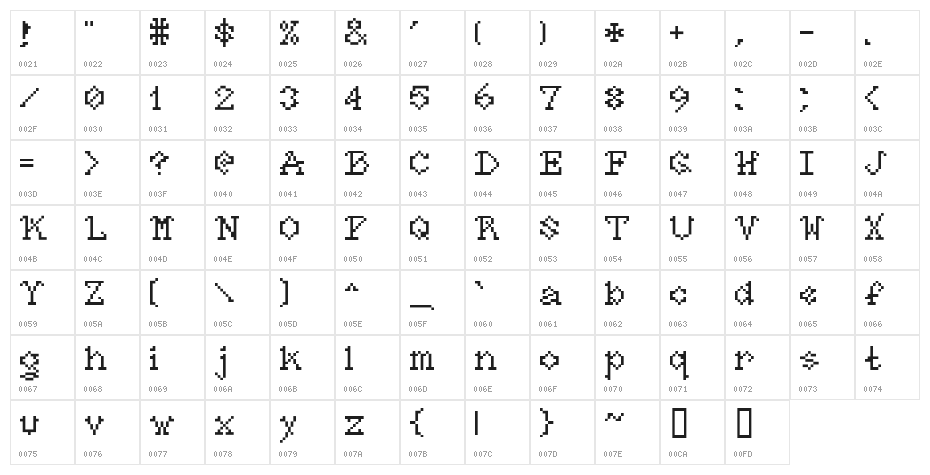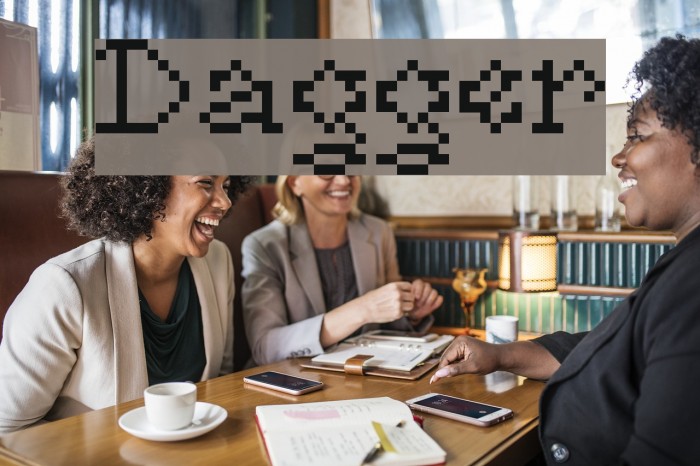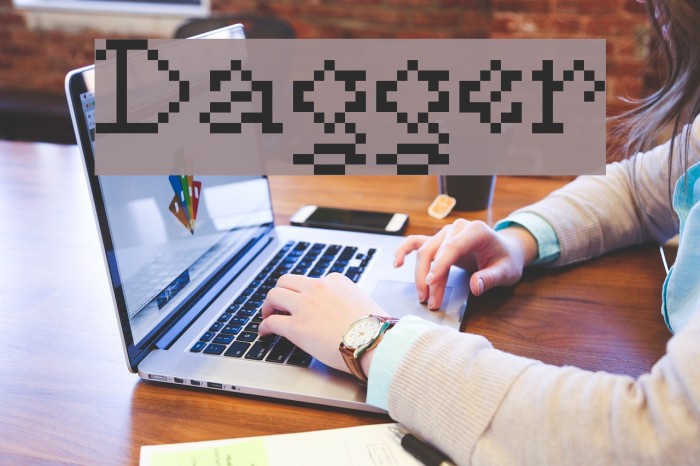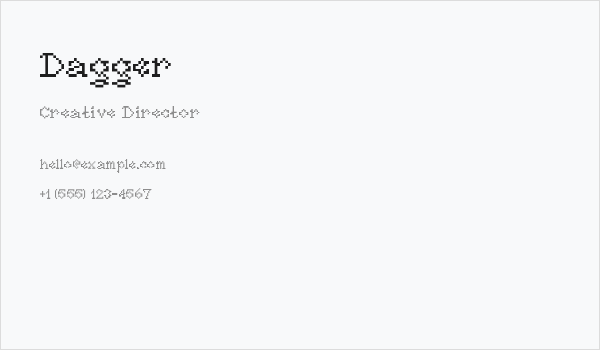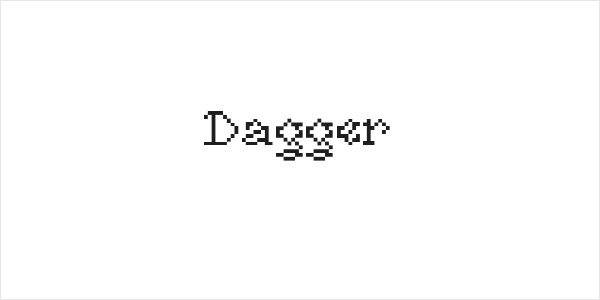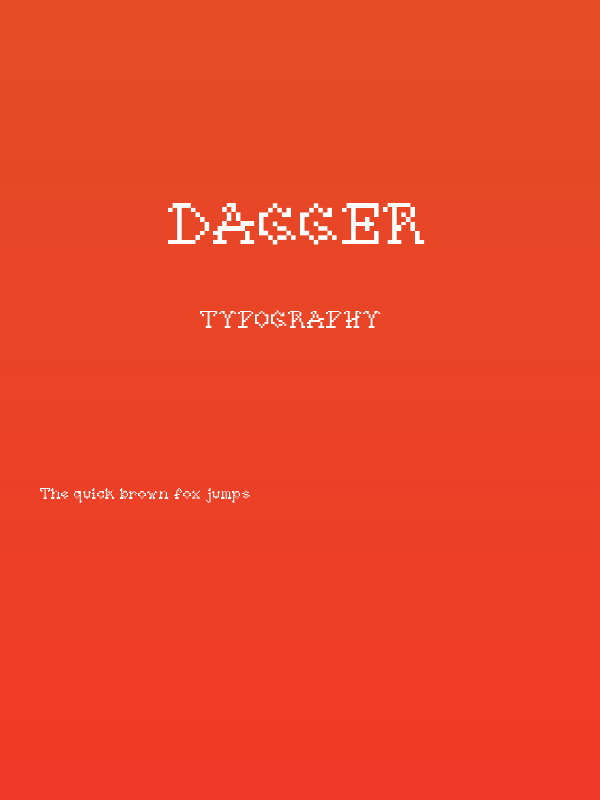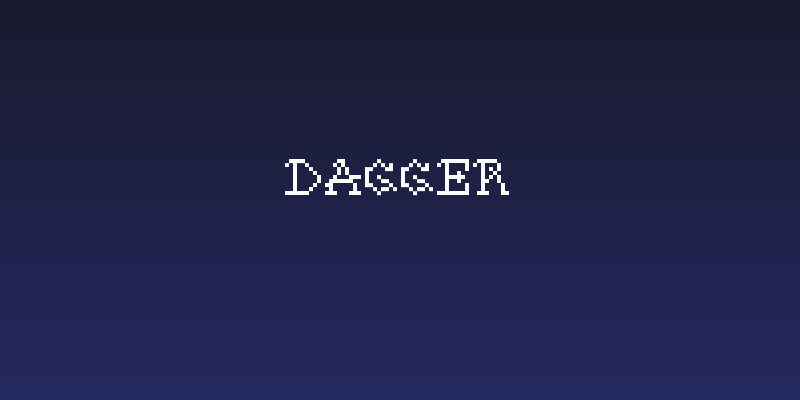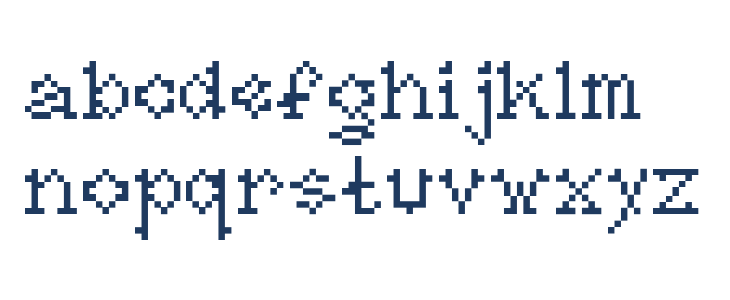
Dagger Font
Dagger Description
This font features a pixelated, retro style reminiscent of early computer graphics and video games. Each character is composed of distinct, blocky pixels, giving it a digital and nostalgic feel. The uppercase letters are bold and prominent, while the lowercase letters maintain the same pixelated structure, offering consistency across the typeface. Numbers and special characters are also designed in this pixelated style, ensuring uniformity. The font's unique aesthetic makes it ideal for projects that aim to evoke a sense of nostalgia or a vintage digital theme.
| Use Case | Logos, Headlines, Digital Art |
| Proposed Projects | Ideal for retro video game designs, digital art projects, and nostalgic-themed branding. |